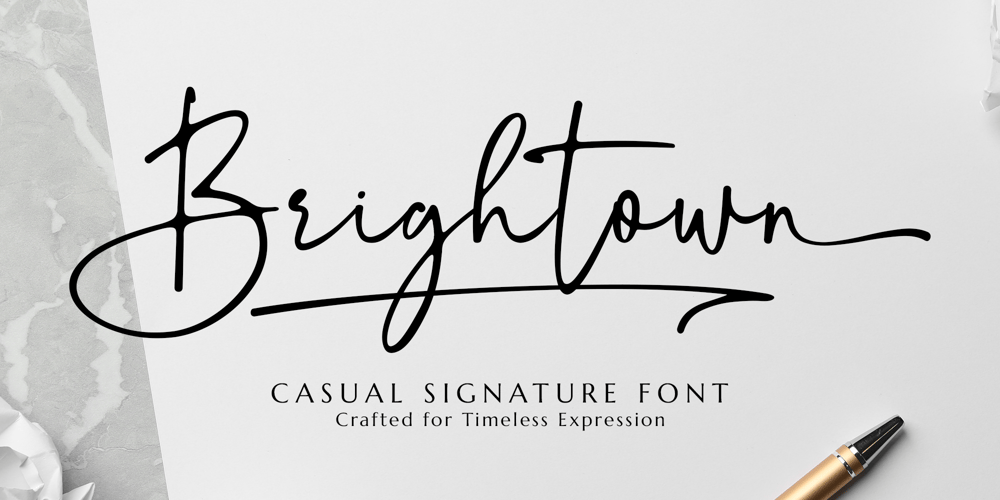
Brightown Font Family was designed by Muhammad Mujibulloh and published by MJB Letters. Brightown contains 1 styles and family package options. Introducing Brightown, our latest font creation that seamlessly blends authenticity with a contemporary signature style. Crafted to emulate natural hand strokes, this font exudes a casual yet refined demeanor. With additional features such as ligatures, alternates, tail swashes, and underline swashes, ‘Brightown’ offers a versatile toolkit for creative expression. Ideal for branding, signatures, posters, packaging, stationery, and beyond, this font elevates your design projects with a touch of personalized elegance. Step into a world where your typography speaks volumes – embrace ‘Brightown.’